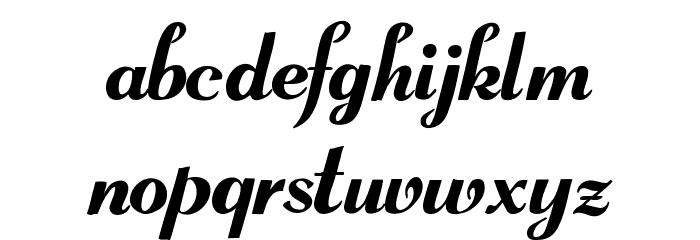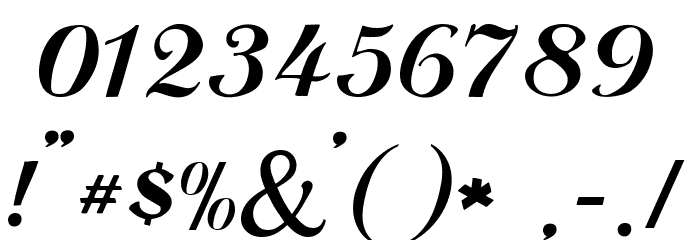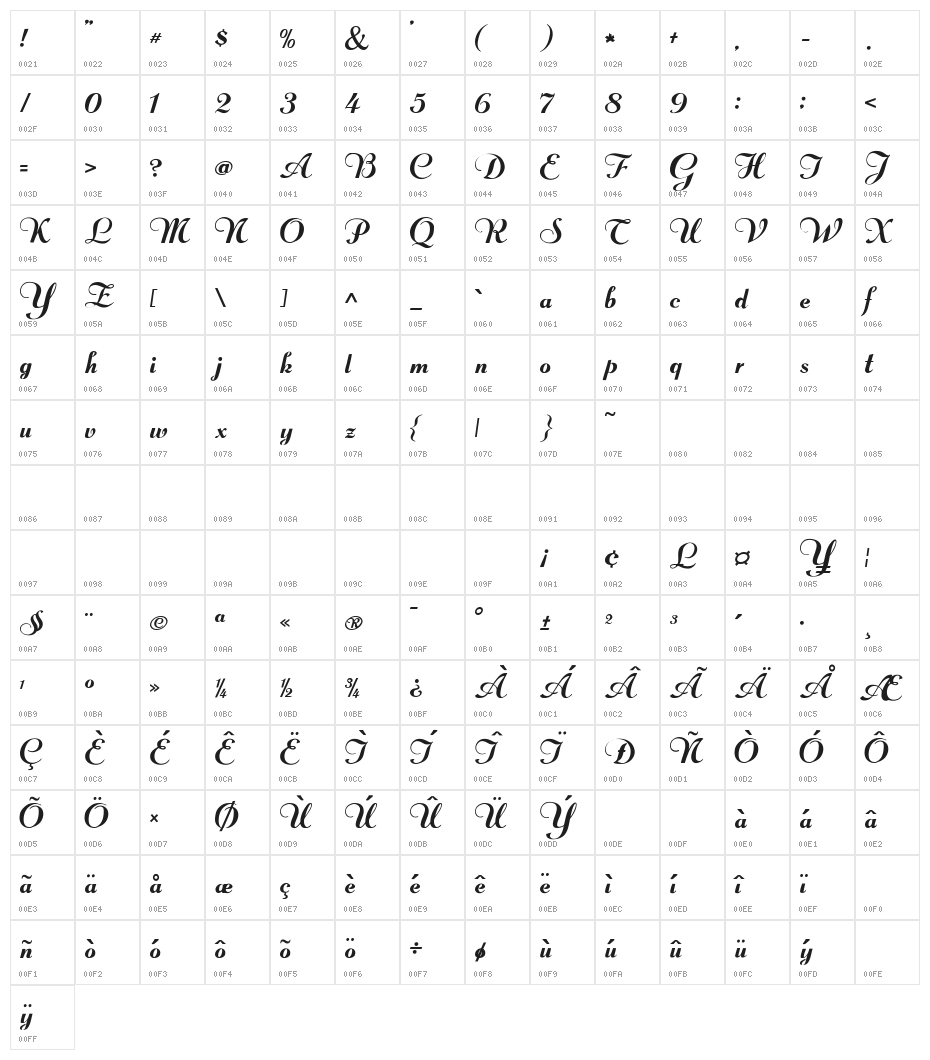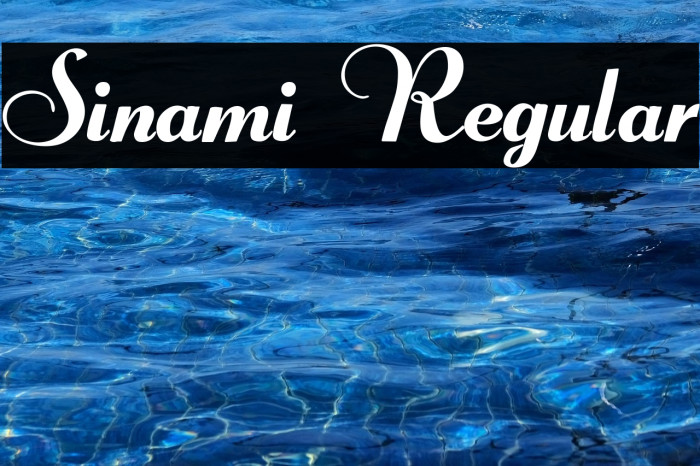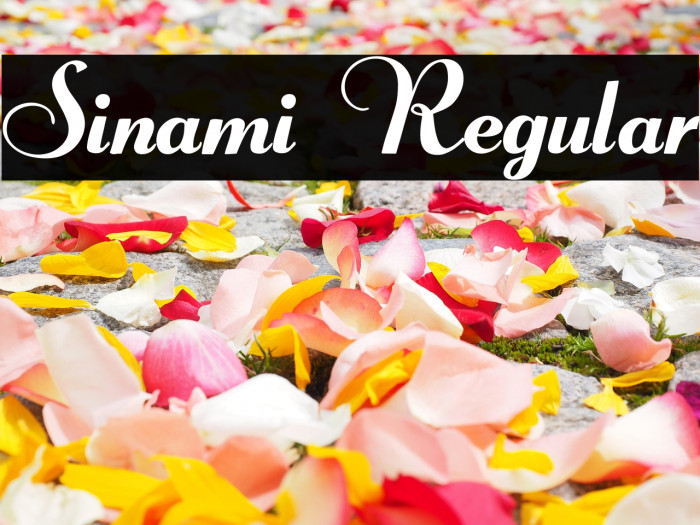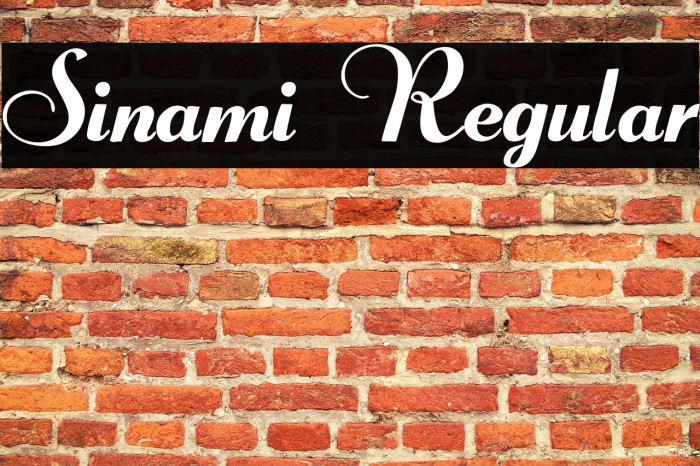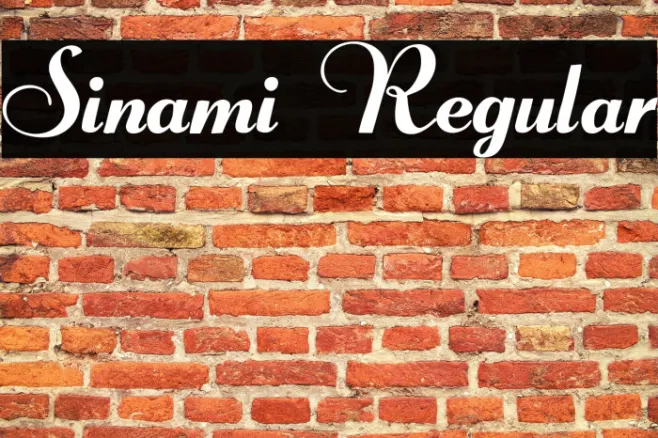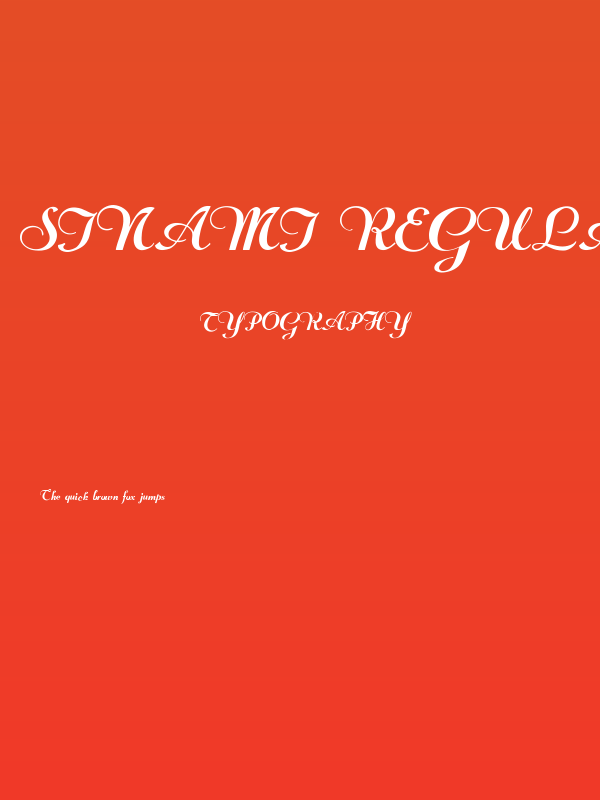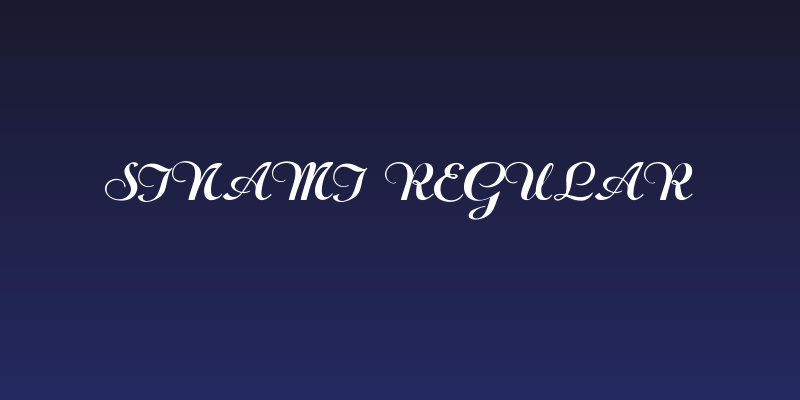
Sinami Regular Font
This font features a classic script style with elegant, flowing curves and a sophisticated appearance. The uppercase letters are ornate and decorative, with intricate swirls and loops that give a sense of movement and grace. The lowercase letters maintain a consistent style, offering a smooth transition between characters. Numbers and special characters are designed to complement the overall aesthetic, ensuring a cohesive look across all text elements. The font's design is ideal for projects that require a touch of elegance and refinement.
A classic script font with elegant, flowing curves and sophisticated style.
- Proposed Projects: Ideal for wedding invitations, formal event programs, elegant branding, and luxury product packaging.
- Overall Style: Classic
- Use Case: Headlines, Invitations, Branding